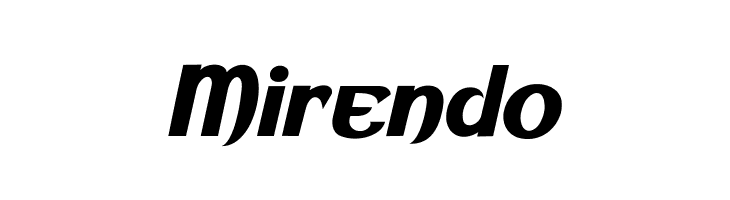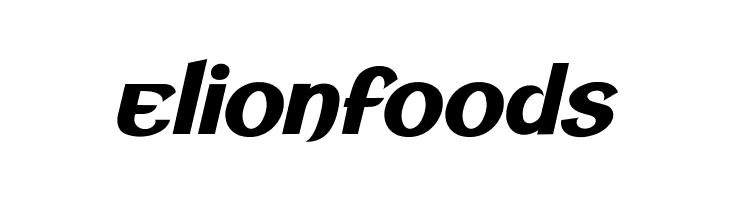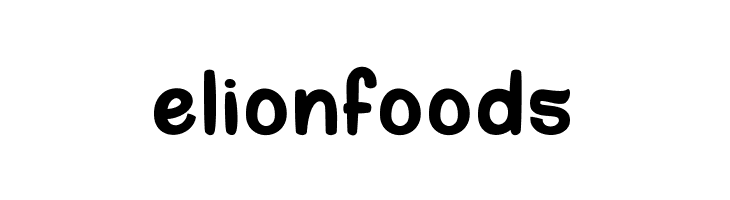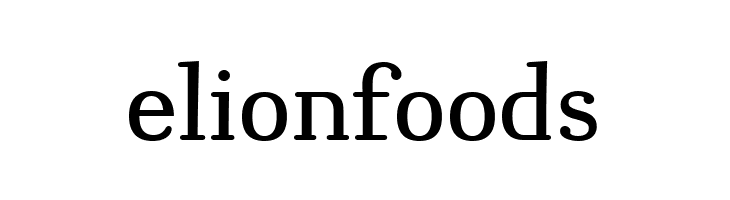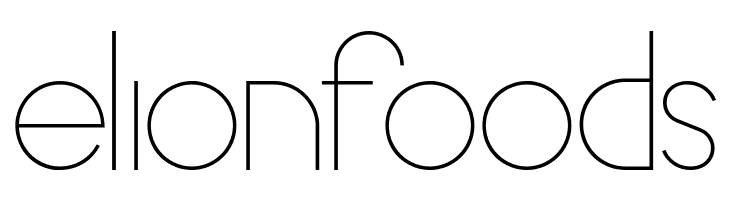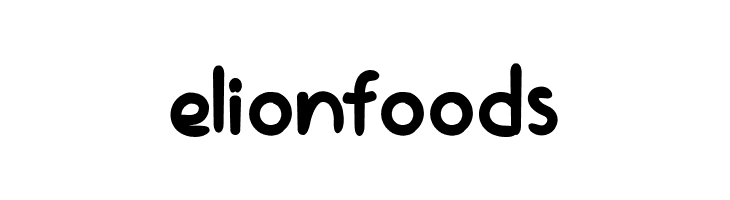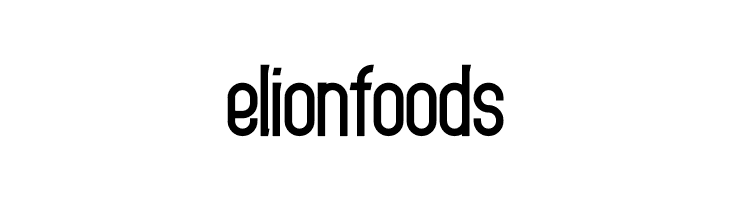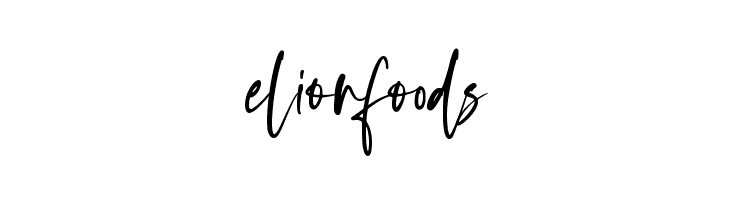
A modern, geometric sans-serif font with a clean and professional look.
A bold, modern font with a dynamic slant and high contrast strokes.
A playful, rounded font with a bold and friendly appearance.
A classic serif font with modern elegance and balanced proportions.
A classic serif font with pronounced serifs and a refined italic style.
A bold serif font with sharp serifs and strong vertical stress.
A sleek, modern font with thin, elongated characters and a minimalist design.
A playful, rounded font with smooth curves and a friendly design.
A modern, condensed font with geometric shapes and consistent stroke widths.
A lively, expressive handwritten font with fluid, dynamic strokes.